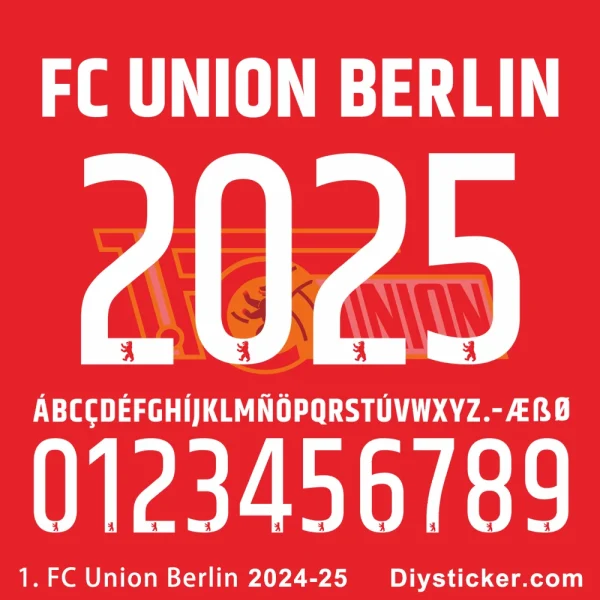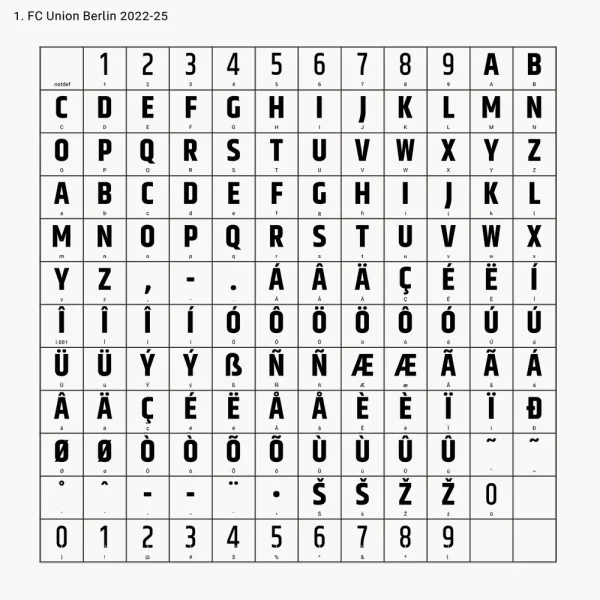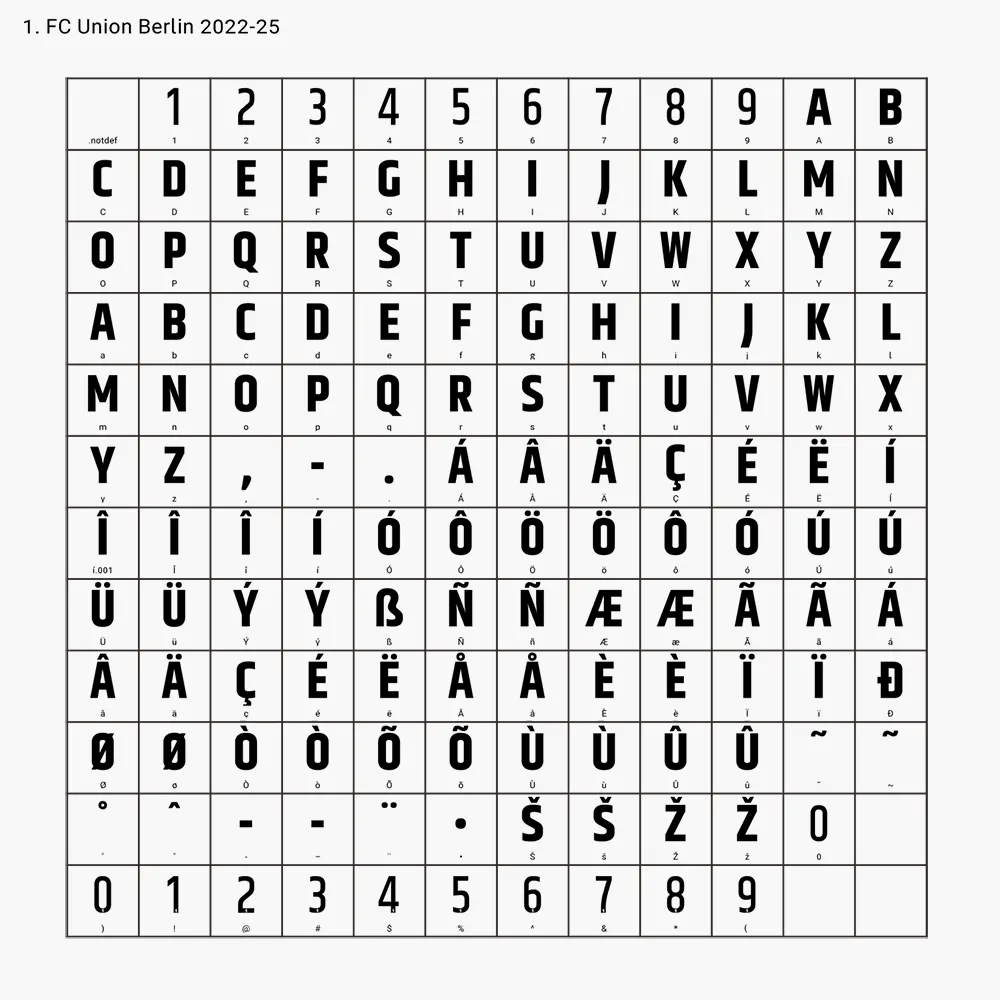
Celebrate Your Love for 1. FC Union Berlin with the 2024-25 Typeface!
This premium font pack lets you recreate the exact typography used in 1. FC Union Berlin’s 2024-25 season jerseys, logos, and promotional materials. Ideal for fans, designers, and businesses creating custom merchandise, banners, or digital content.
- 100% Accurate Design – Meticulously digitized to match the club’s official 2024-25 style.
- German Football Spirit – Perfect for fan tributes, matchday graphics, or Union Berlin-themed designs.